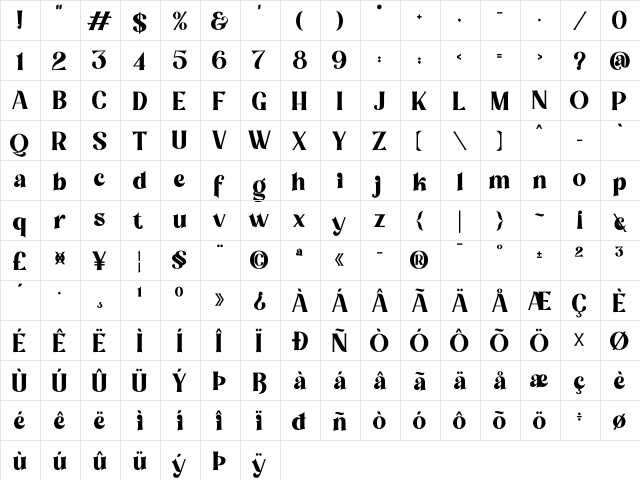
Mount Hills Regular
| Designer | Riyadh Rahman |
Design Context for Mount Hills Typeface
Mount Hills offers clean, dependable letterforms without strong stylistic allegiance, making it a practical choice for designers who need flexibility.